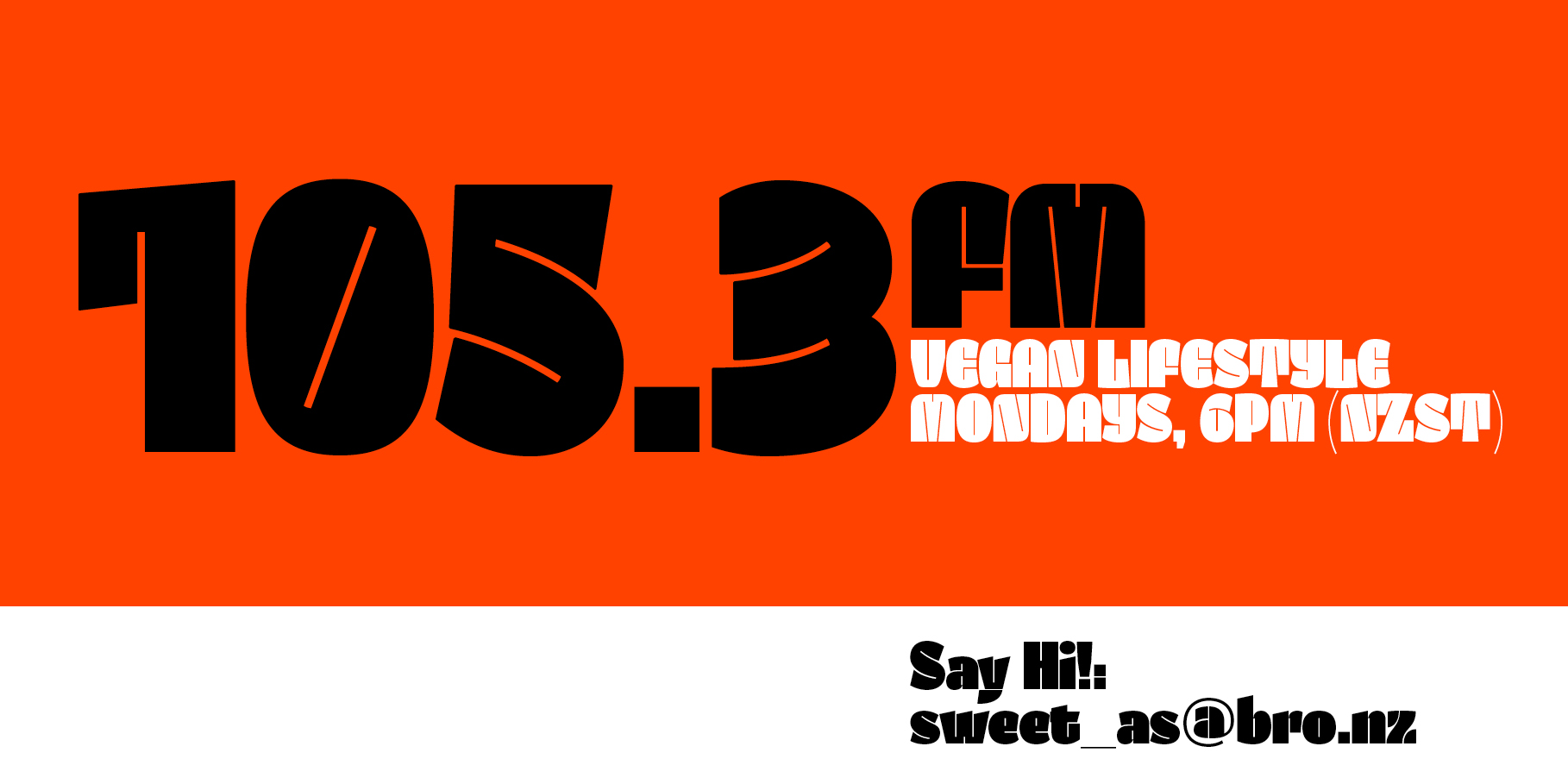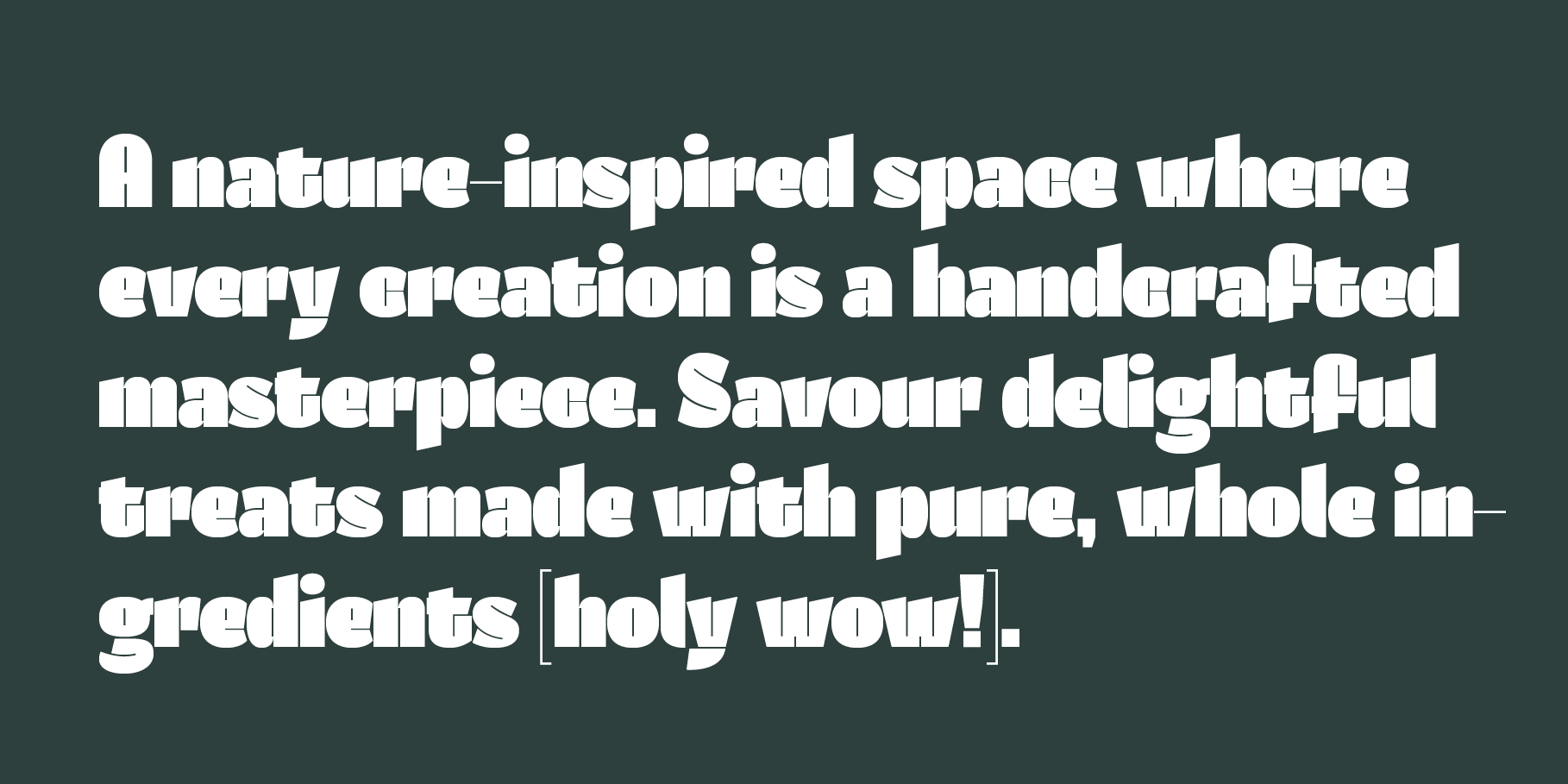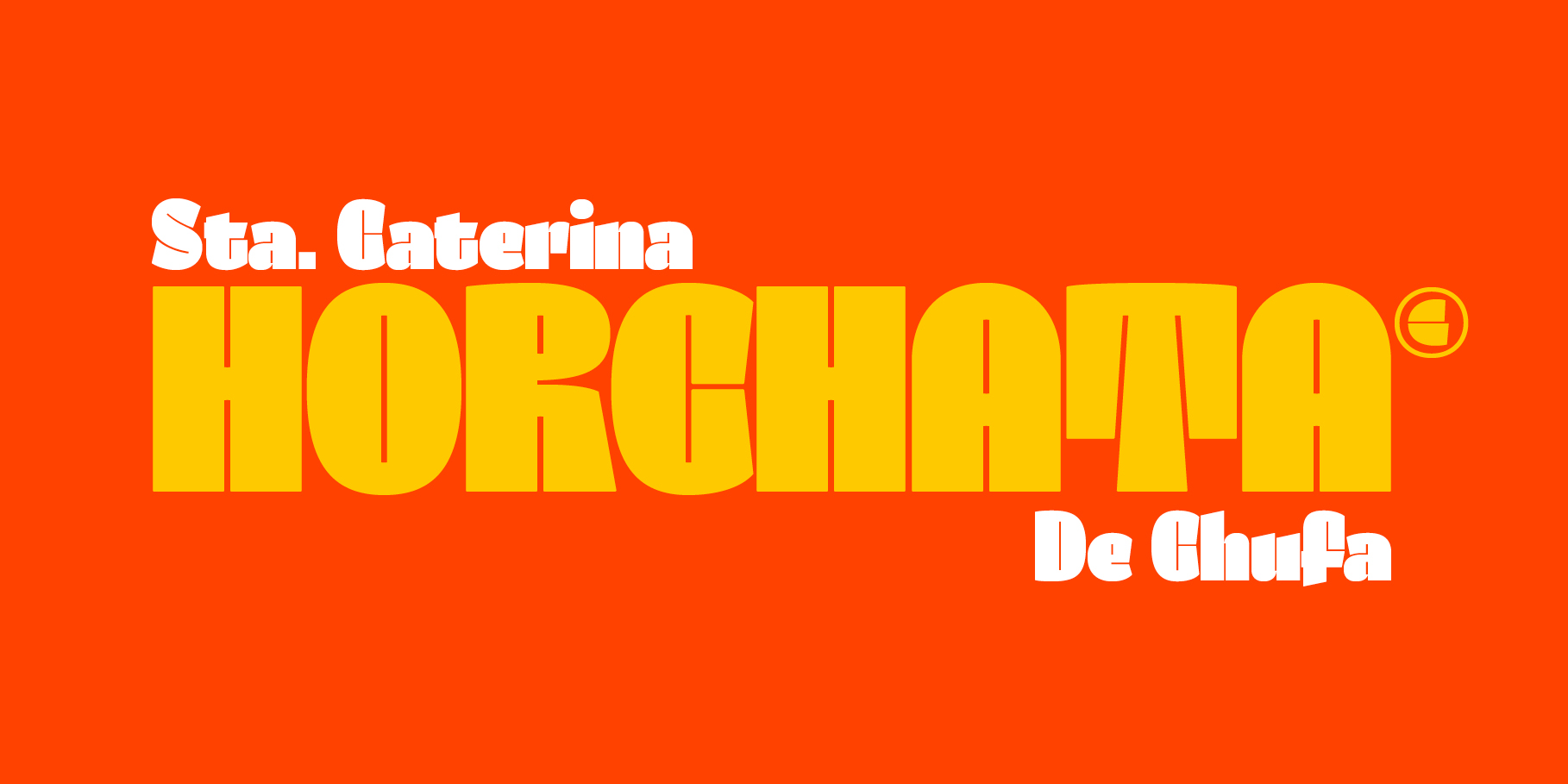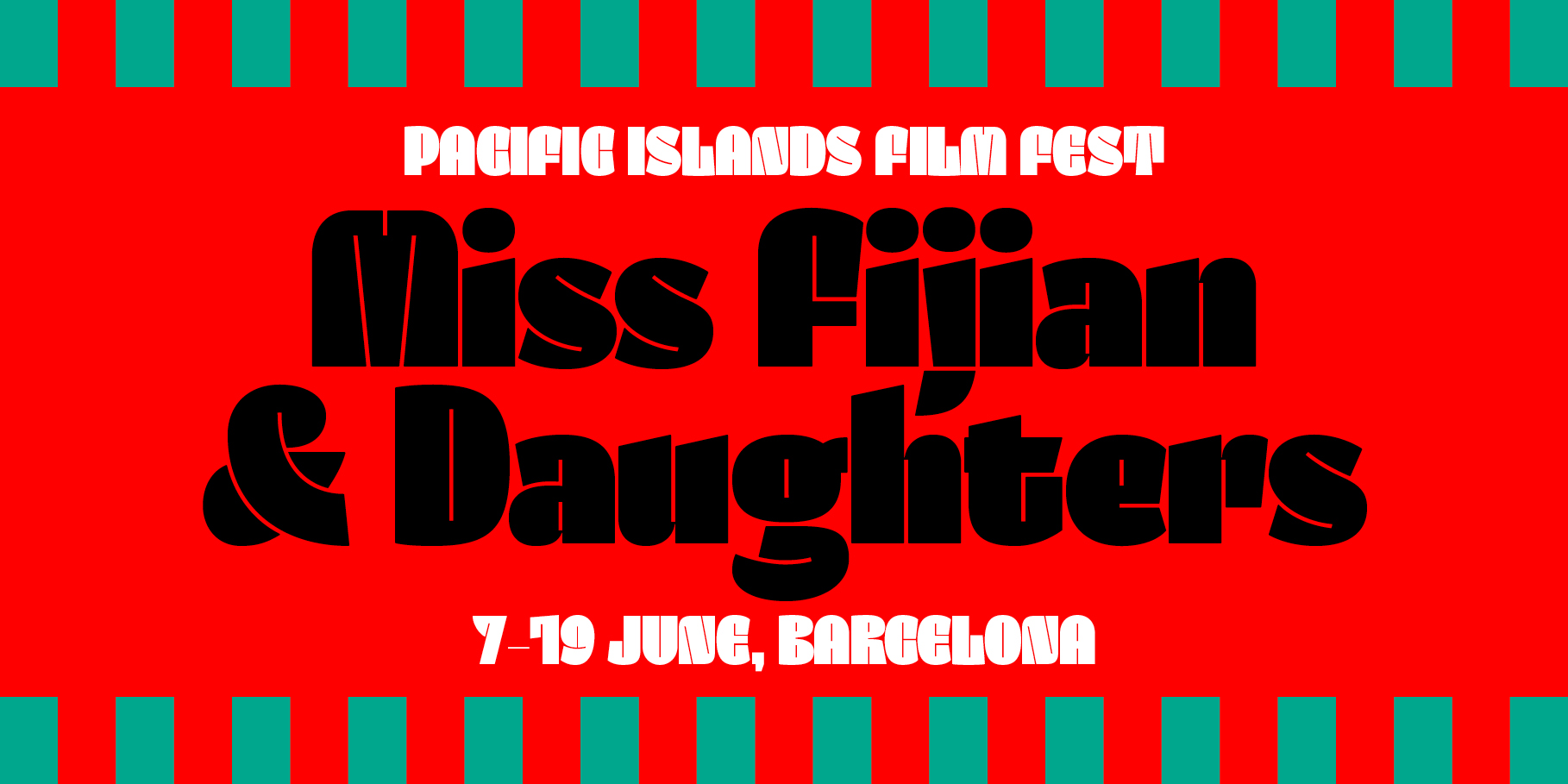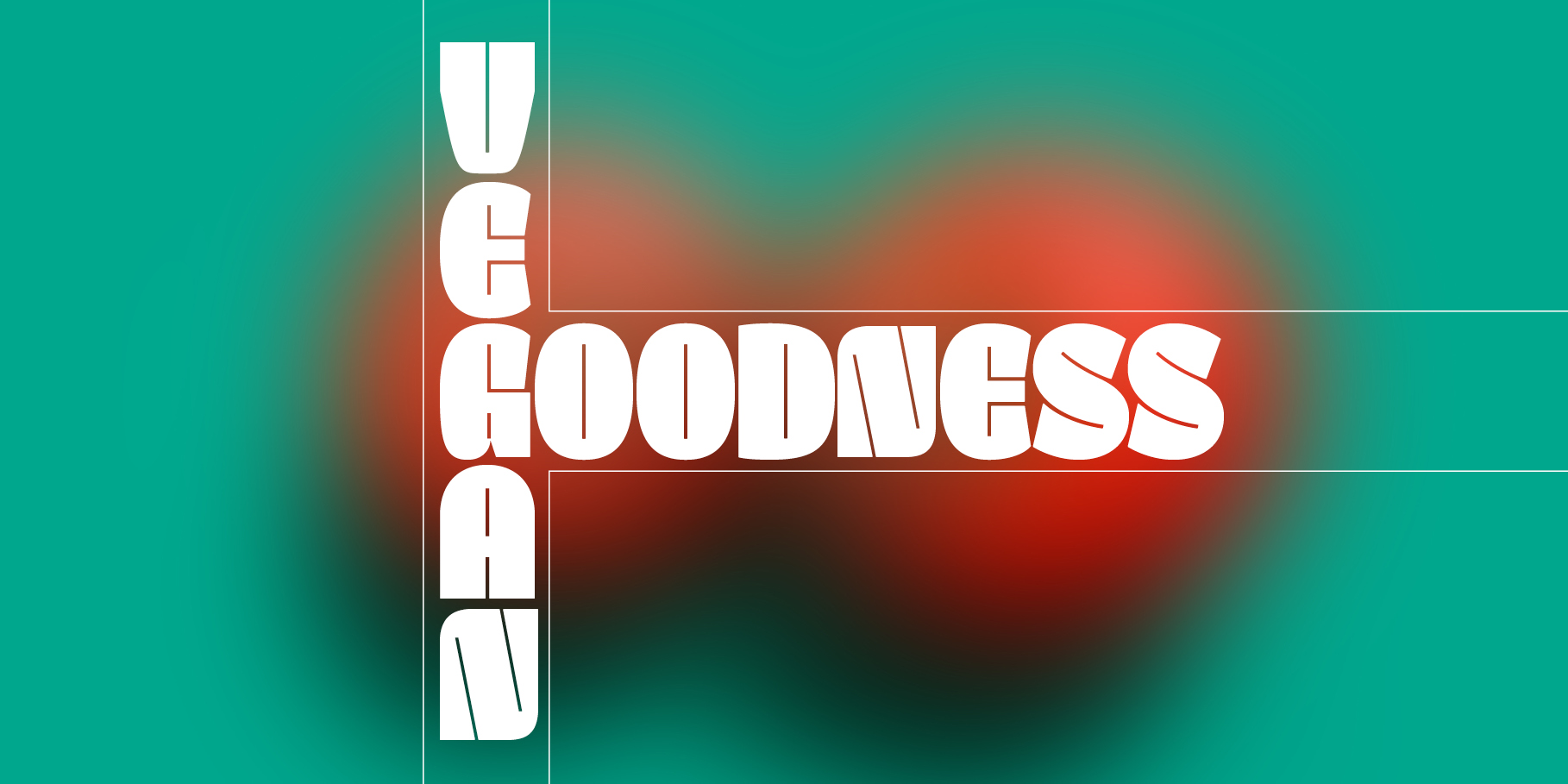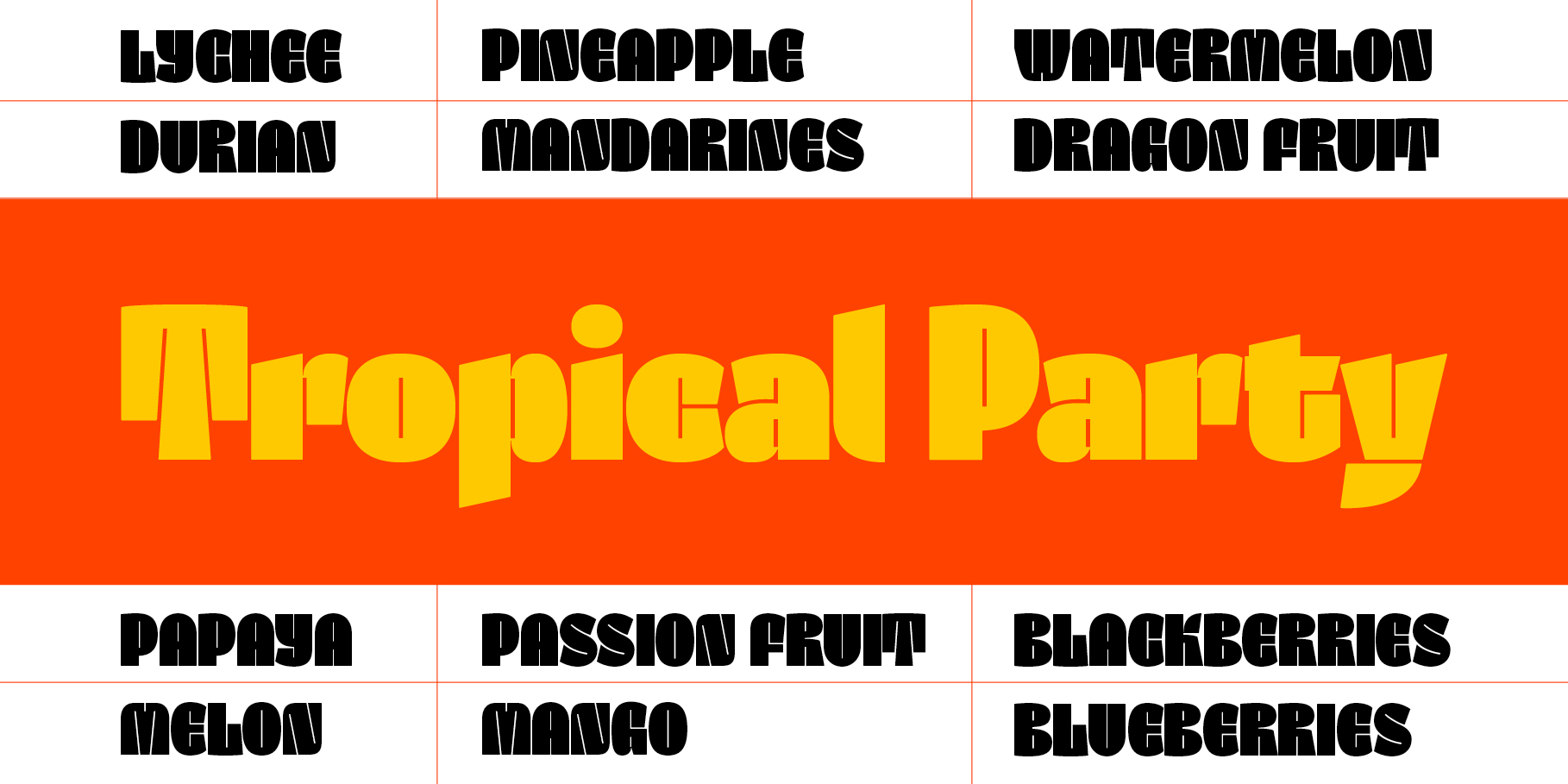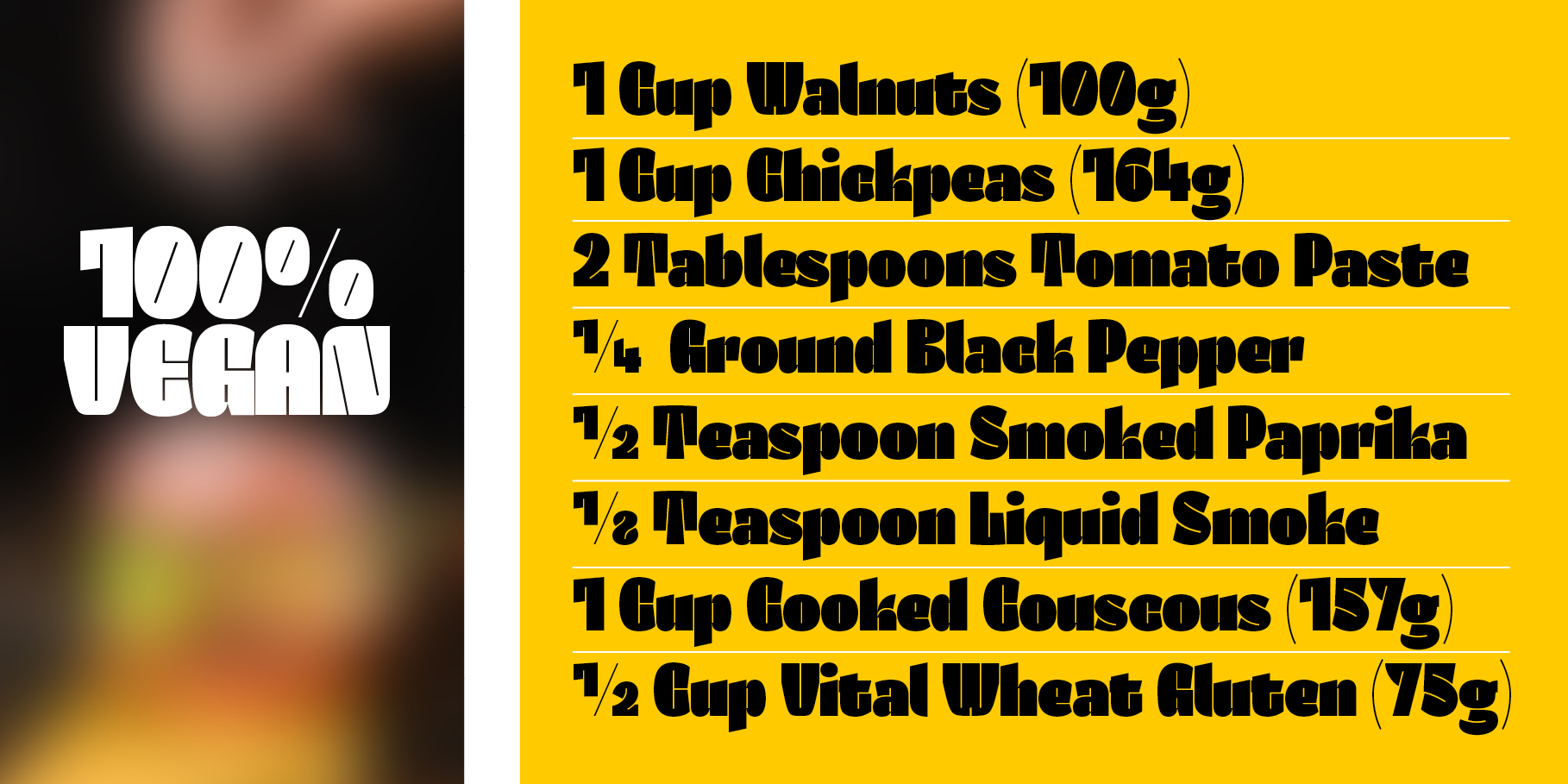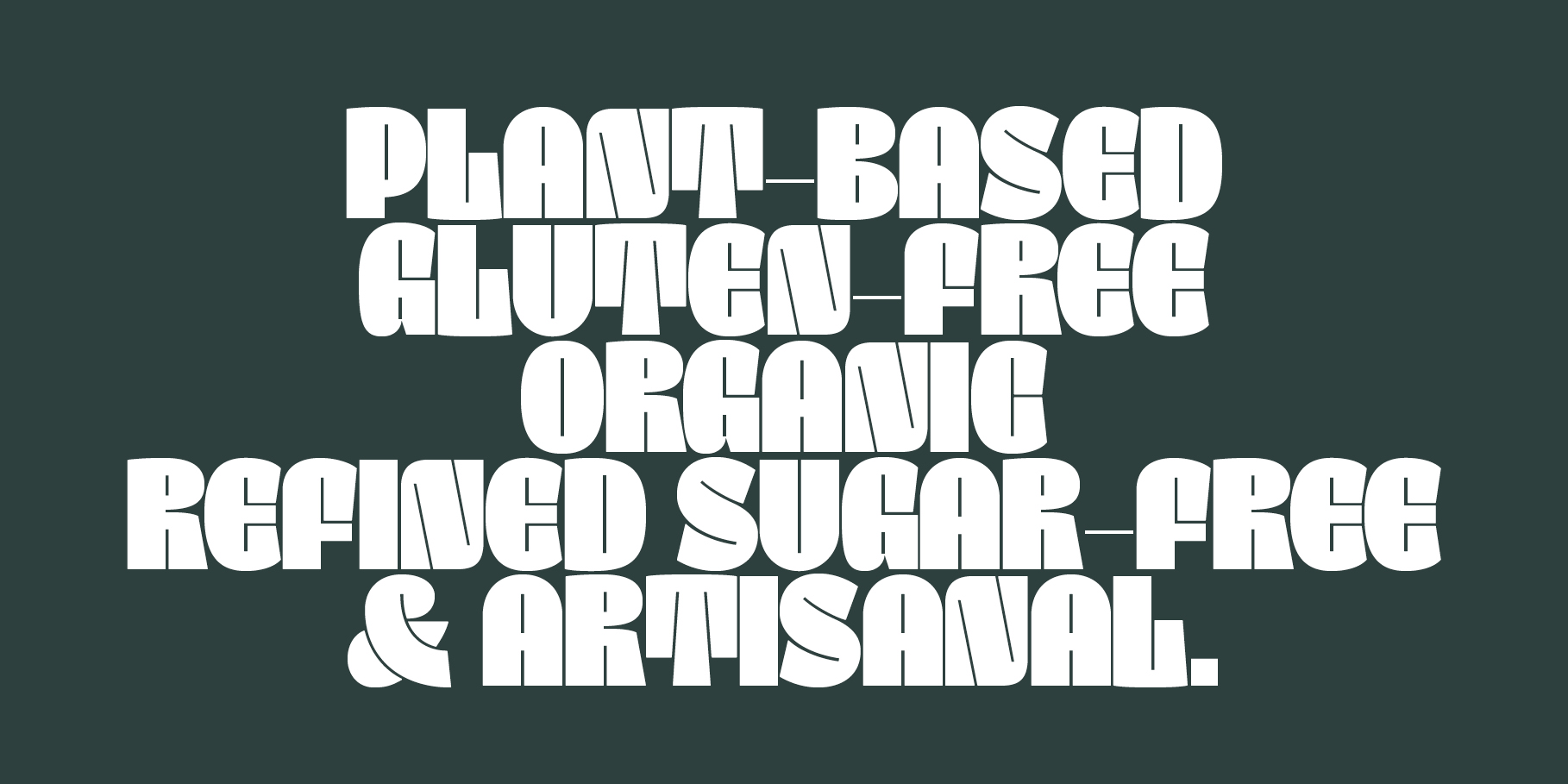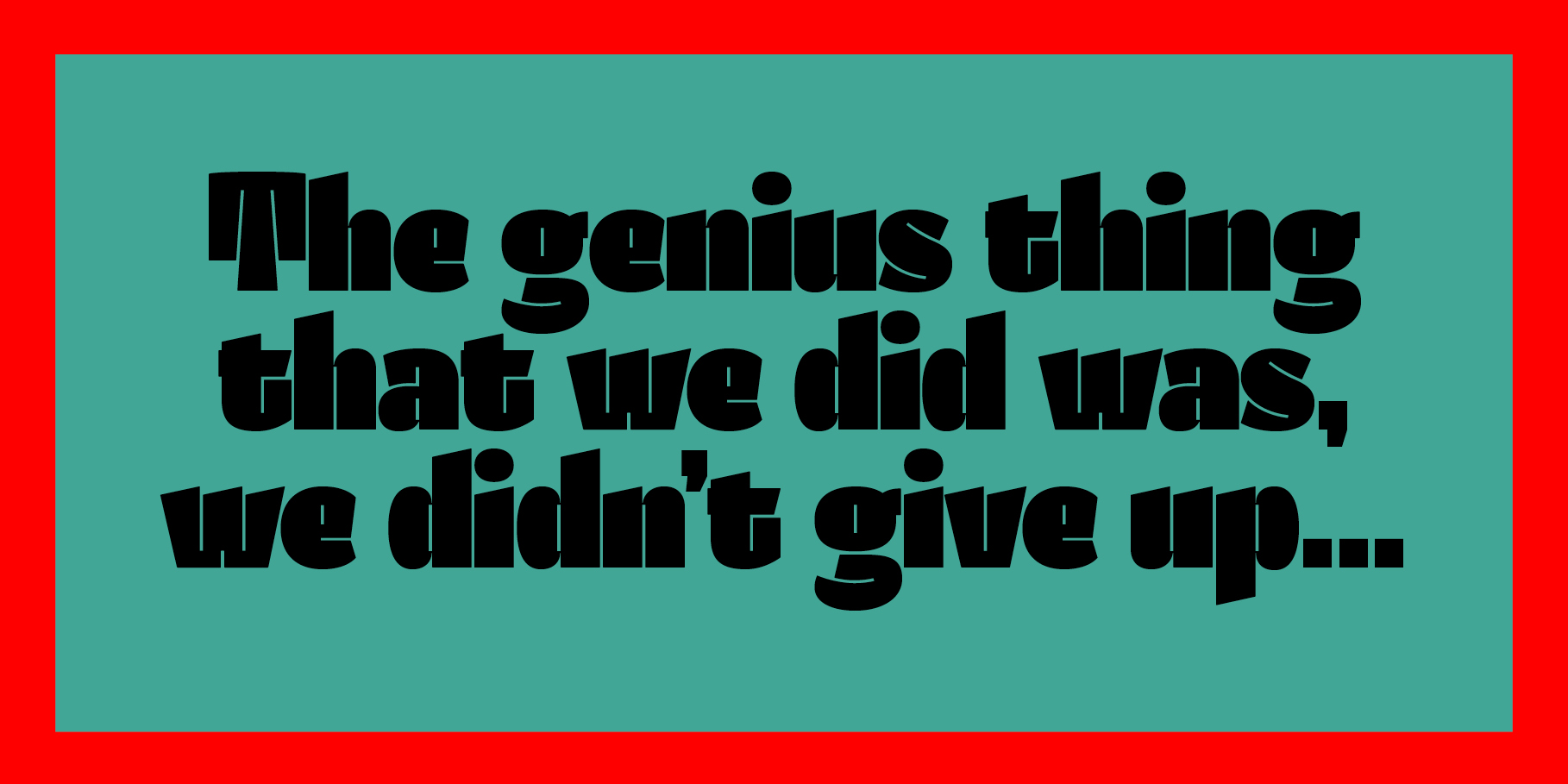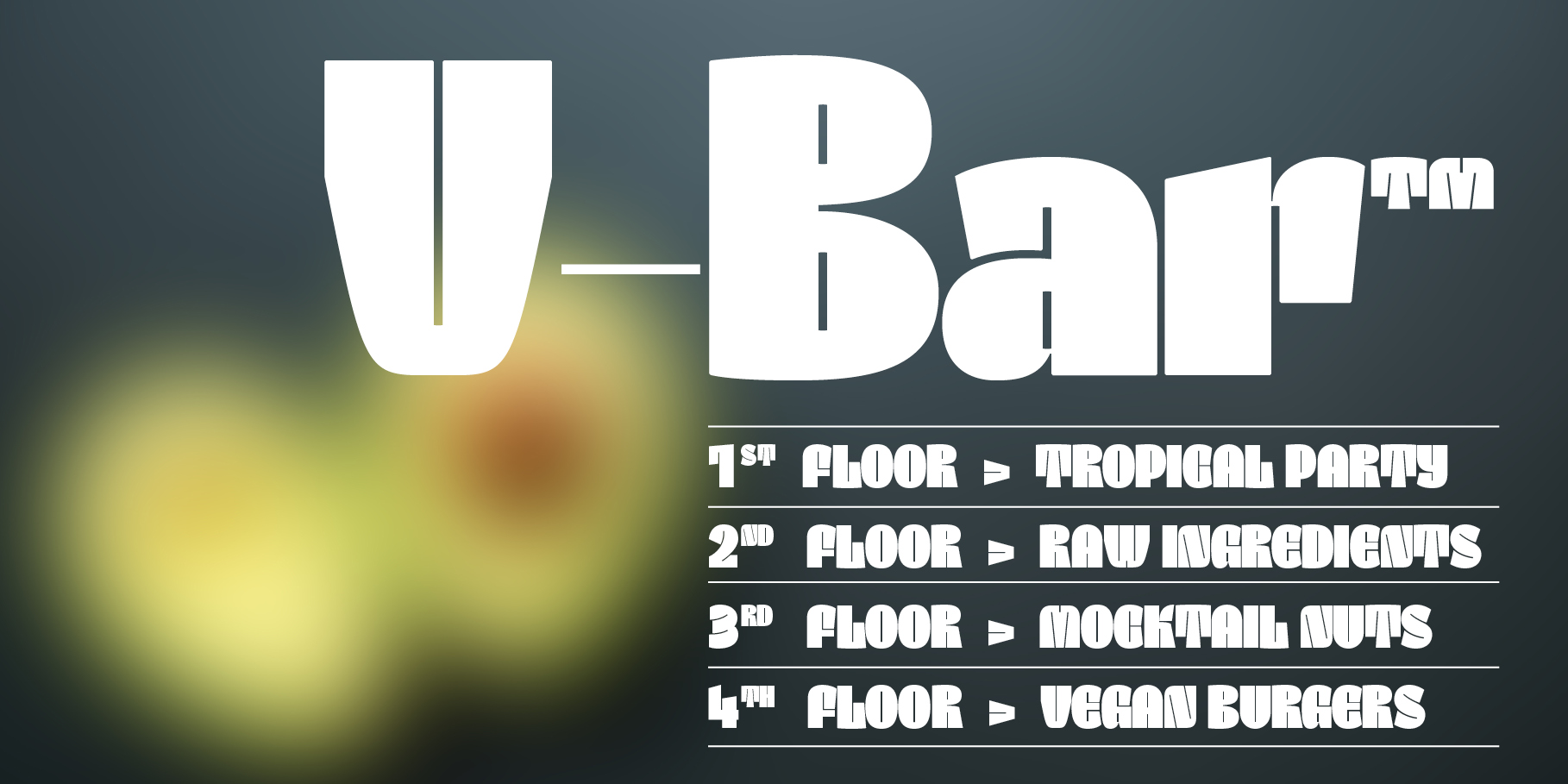
In 2024, the Arabic type designer Lara Captan challenged me to create a Latin companion for her existing Arabic display font called Kanat — the Turkish word for “wing.” Captan’s beautiful typeface is a detached stencil design, originally created for letterpress, which carries architectural playfulness and delivers a warm kind of boldness to the reader.
Based on the description above— and challenged by the question: How can I create a Latin companion for an Arabic font I cannot read or write? — I spent many hours observing and analysing Kanat Arabic, its personality and DNA, followed by many more hours of consulting with Lara Captan. The result is a Latin interpretation that carries a bold attitude and playful spirit.
Kanat Latin is best used at 48pt and above. It’s designed to highlight words with flair, and finds its sweet spot in architectural, music, fashion, and packaging contexts.